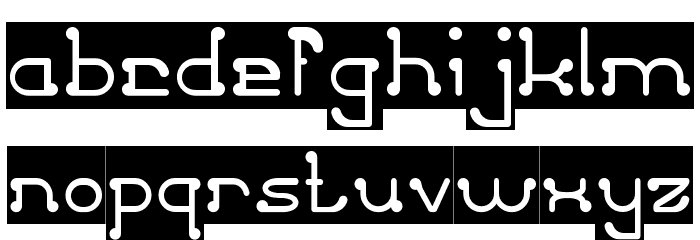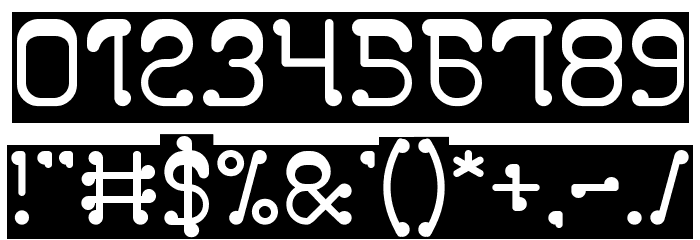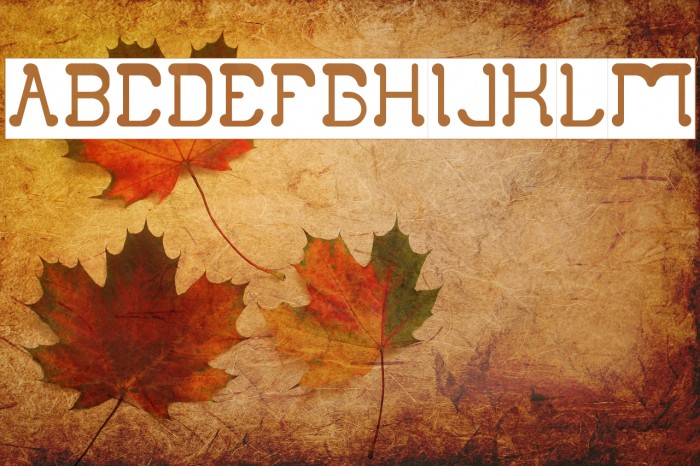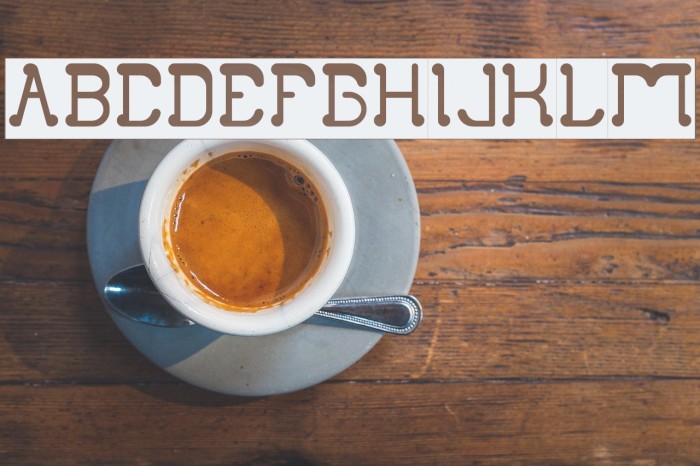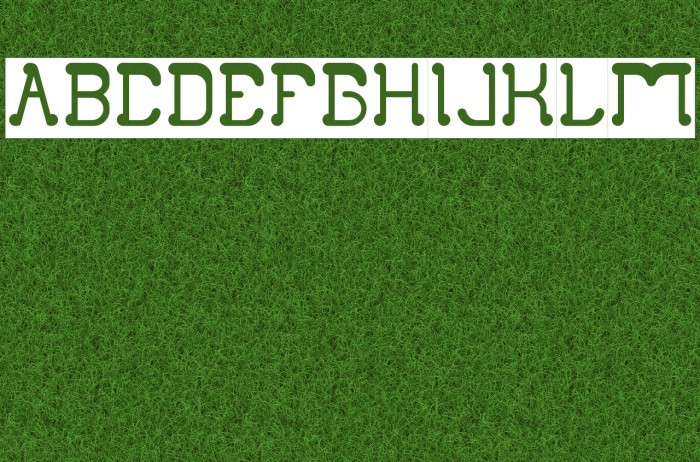
Club Golf-Inverse Font
This font features a unique and playful design with rounded edges and a bold, modern aesthetic. The characters are constructed with a consistent stroke width, creating a cohesive and uniform appearance. The uppercase and lowercase letters maintain a similar style, with slight variations to enhance readability. Numbers and special characters are designed to match the overall theme, ensuring a harmonious look across all text elements. The font's distinctive style makes it suitable for projects that require a fun and engaging visual impact.
A playful, modern font with rounded edges and consistent stroke width.
- Proposed Projects: Ideal for children's books, playful branding, creative posters, and modern web design.